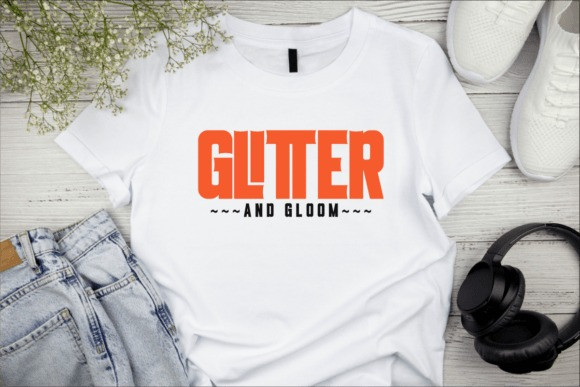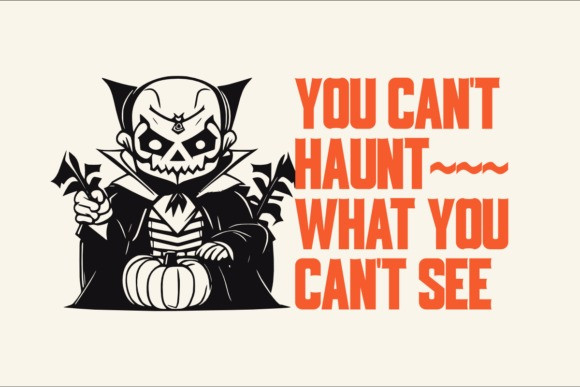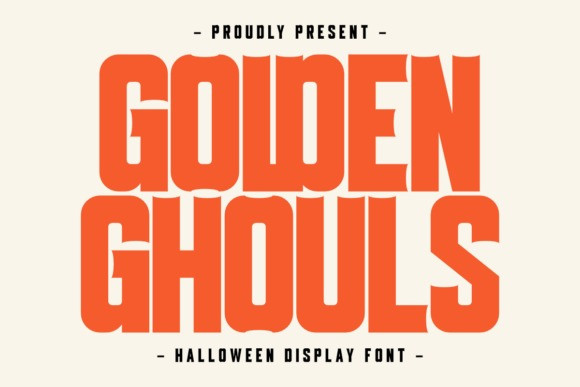
Golden Ghouls Font
Golden Ghouls Font is a hulking Halloween display typeface that shouts from the graveyard gates. Massive all-caps letters stack into tight blocks with tombstone-straight verticals, soft rounded corners, and gouged bite cuts that feel like fangs taken from the baseline. The wide stance, compact counters, and steady vertical rhythm create brutal impact while staying clean on posters and tiny thumbnails. Subtle scoops in the shoulders add motion; blunt terminals keep the silhouette solid for flat color, gradients, or eerie glow effects. Use it for haunted-house flyers, horror streams, candy packaging, seasonal signage, tees, and bold social promos. Pair with a thin grotesk or serif for contrast and let this slabby, coffin-chic font deliver instant October energy—loud, legible, and gloriously spooky.